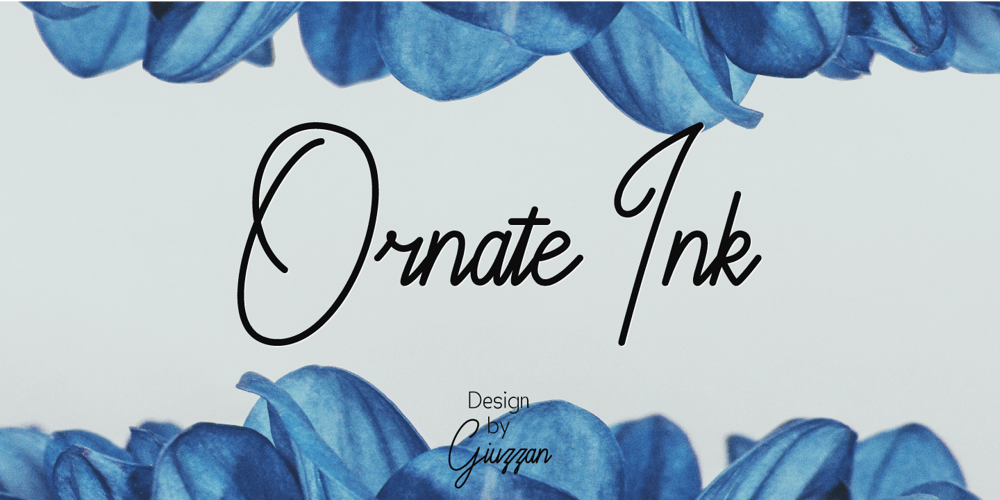
Ornate Ink Font Family was designed by Muhamad Fauzan and published by Giuzzan. Ornate Ink contains 1 styles and family package options. Ornate Ink is a versatile script font that combines classic elegance with a modern touch. With intricate calligraphic details, natural flow, and an authentic ink texture, it’s perfect for adding sophistication to invitations, branding, and various design projects. Available in multiple weights and suitable for both web and print. Elevate your designs with Ornate Ink’s timeless beauty.